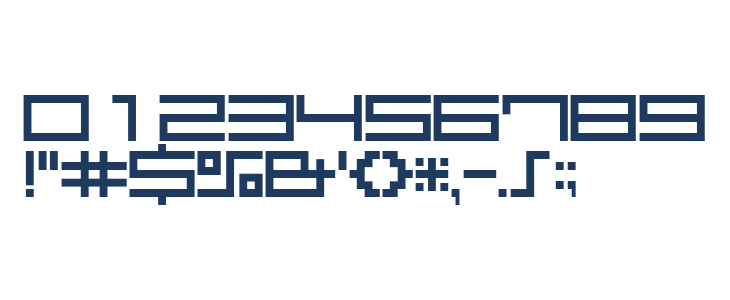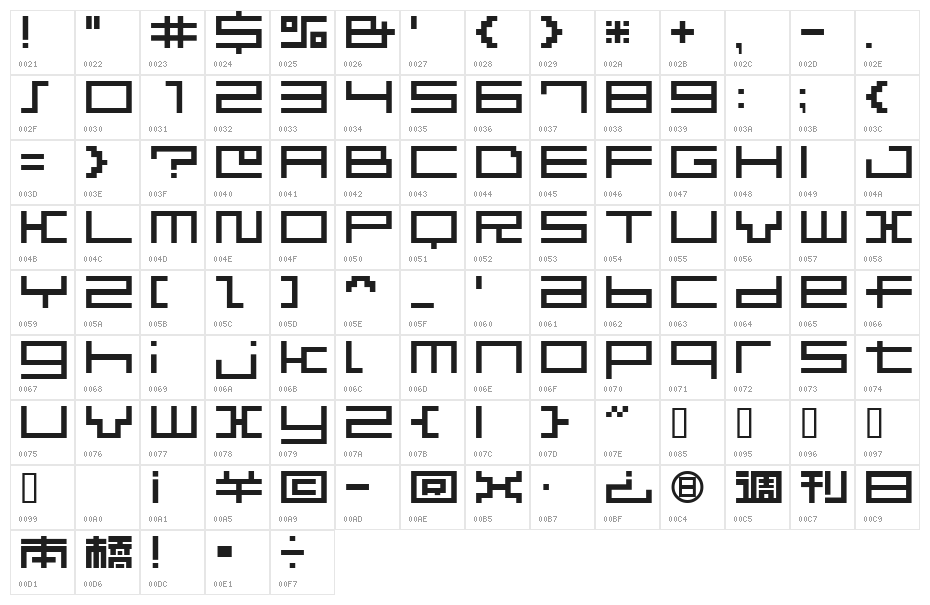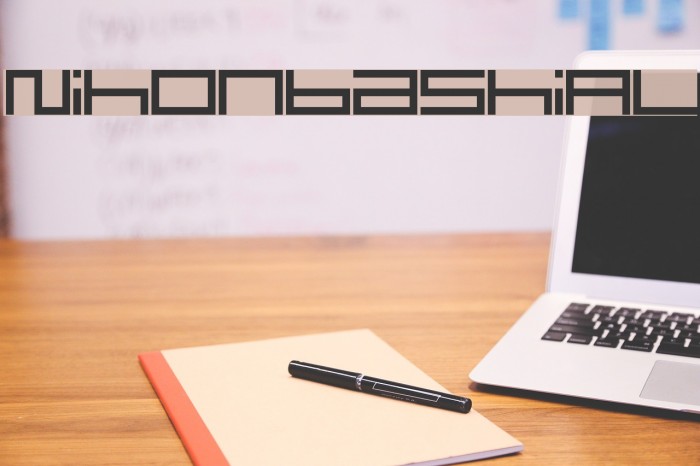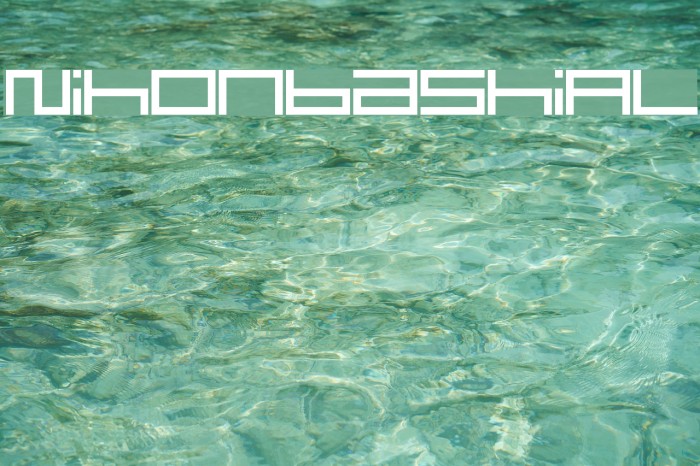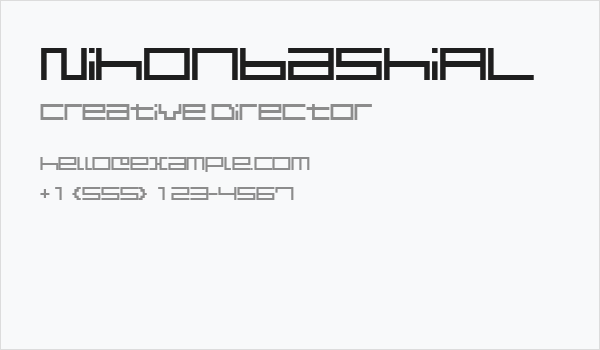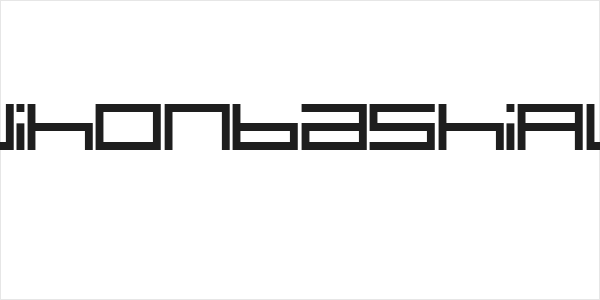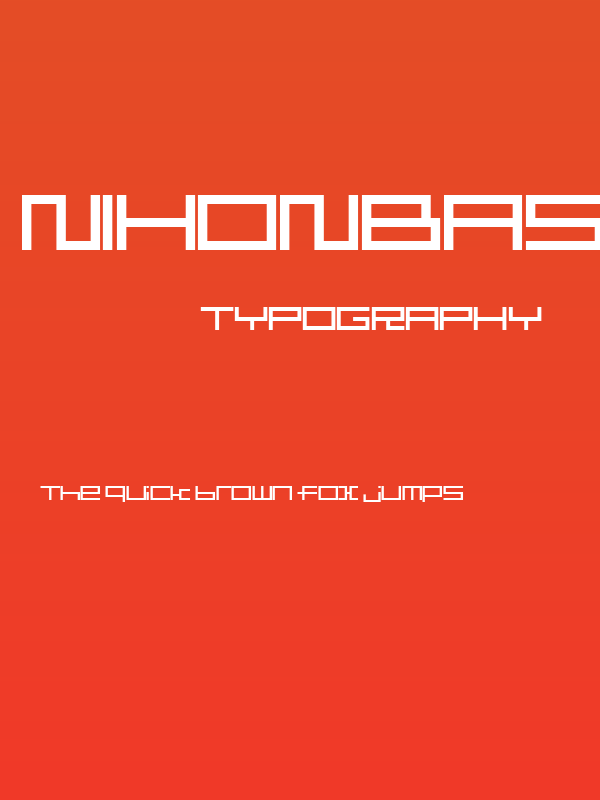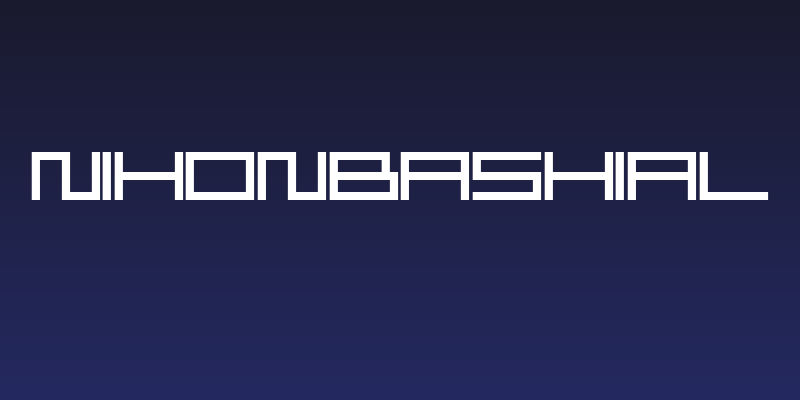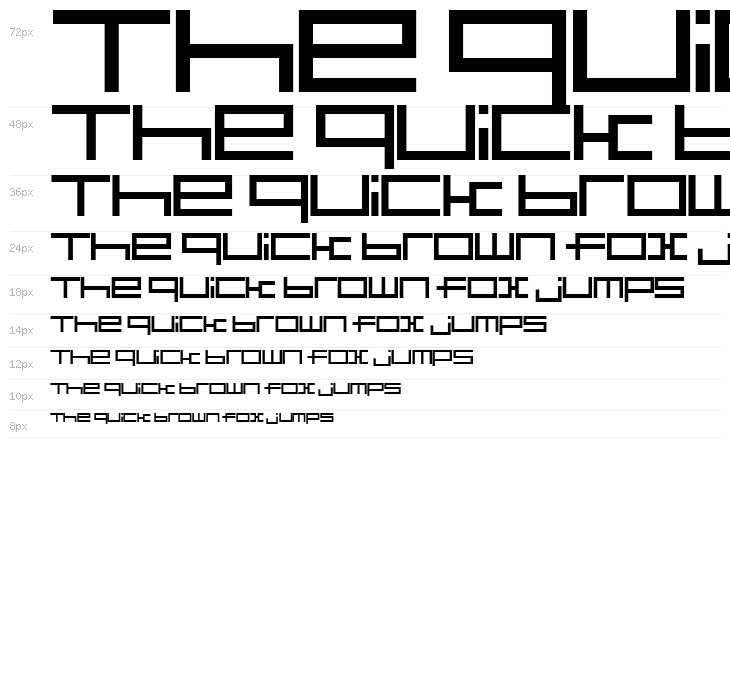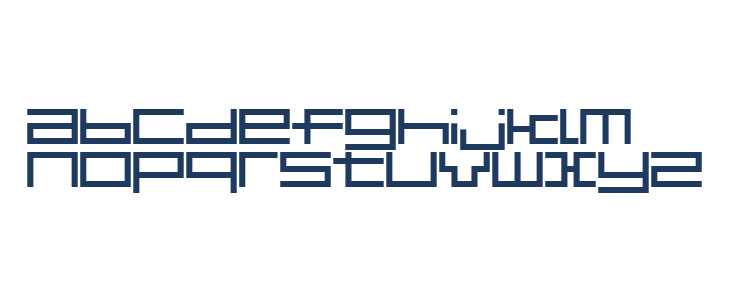
NihonbashiAL Font
This font features a distinctive, geometric design with a pixelated, grid-like structure. Each character is composed of straight lines and right angles, creating a digital, retro aesthetic reminiscent of early computer graphics or arcade games. The uniformity in line thickness and the absence of curves give it a mechanical and futuristic feel. The uppercase and lowercase letters maintain a consistent height, contributing to a monospaced appearance, although the actual spacing varies slightly. The numerals and special characters follow the same design principles, ensuring a cohesive look across all glyphs. This font's unique style makes it stand out, ideal for projects that require a bold, tech-inspired visual impact.
| Overall Style | Futuristic, Retro |
| Use Case | Logos, Headlines, Digital interfaces |
| Proposed Projects | Ideal for video game design, tech-themed posters, digital art projects, and retro-style branding. |